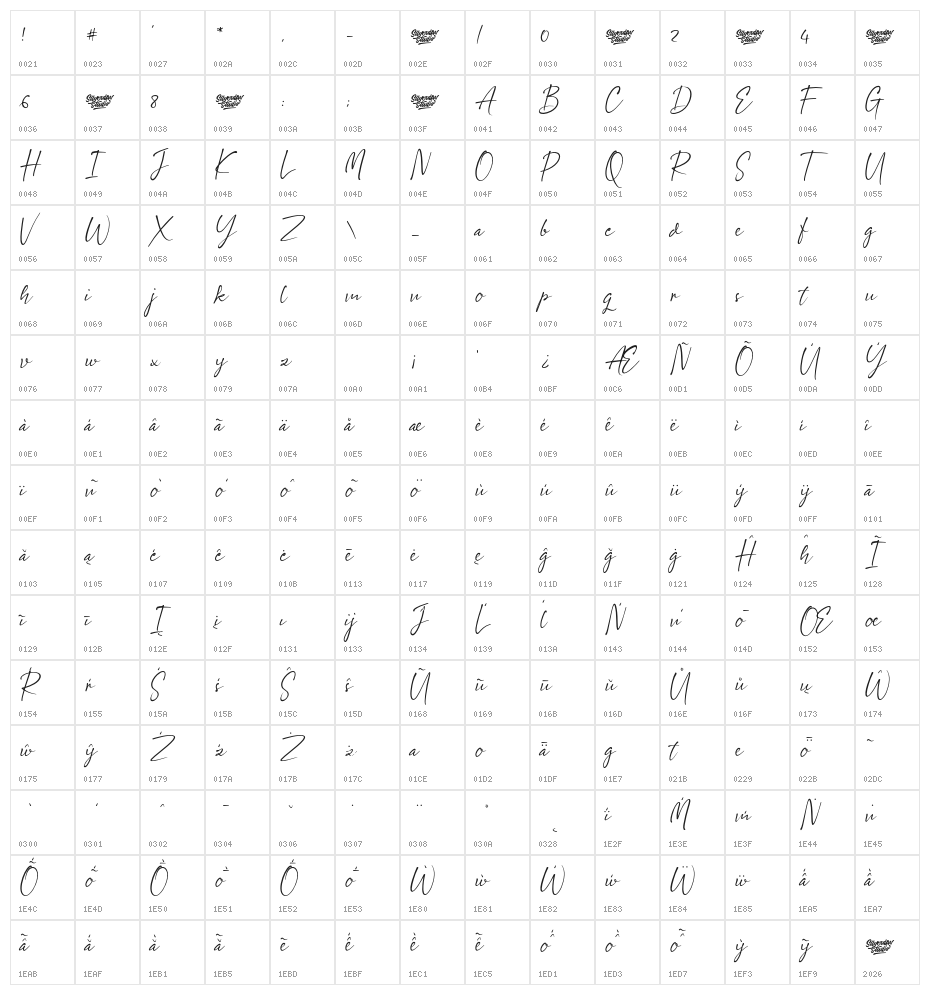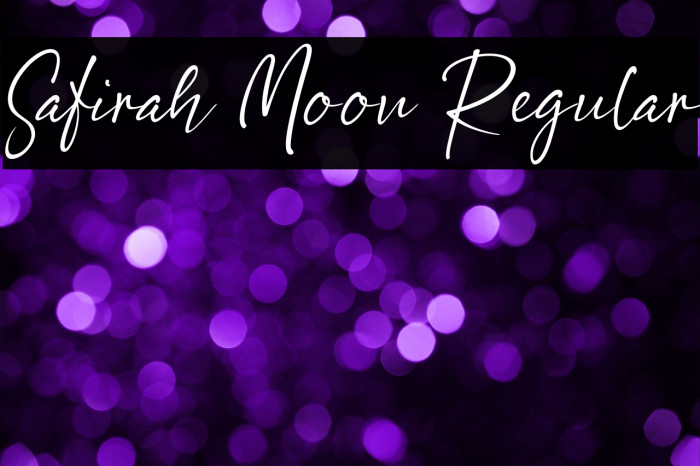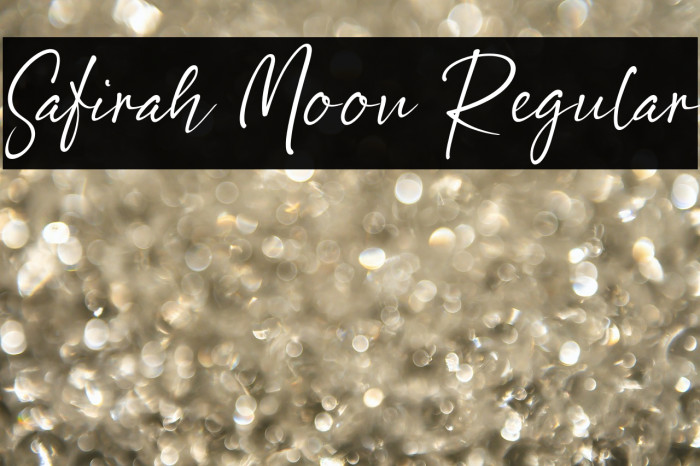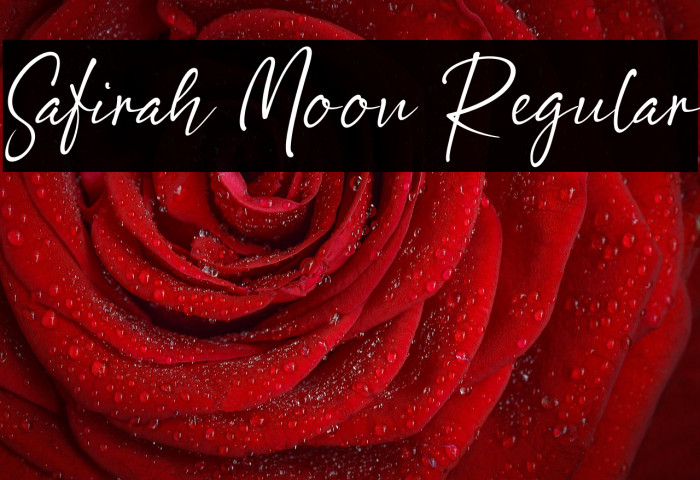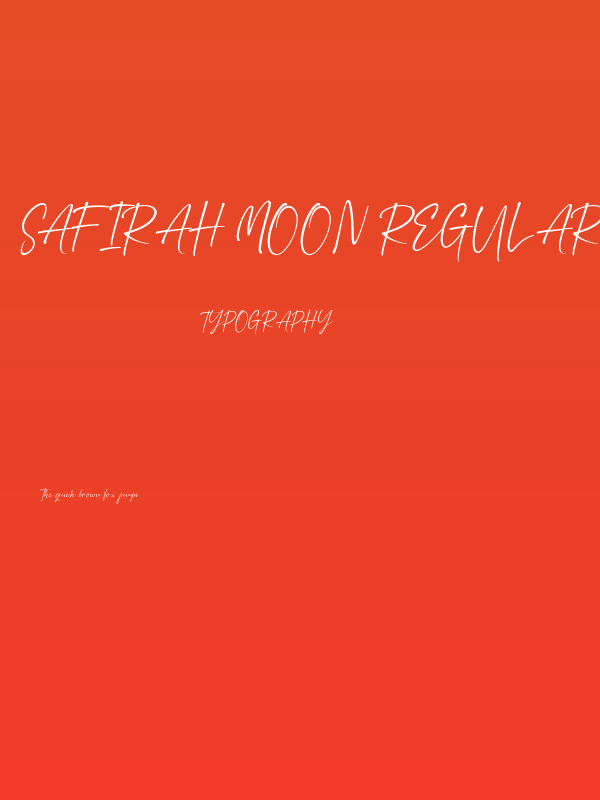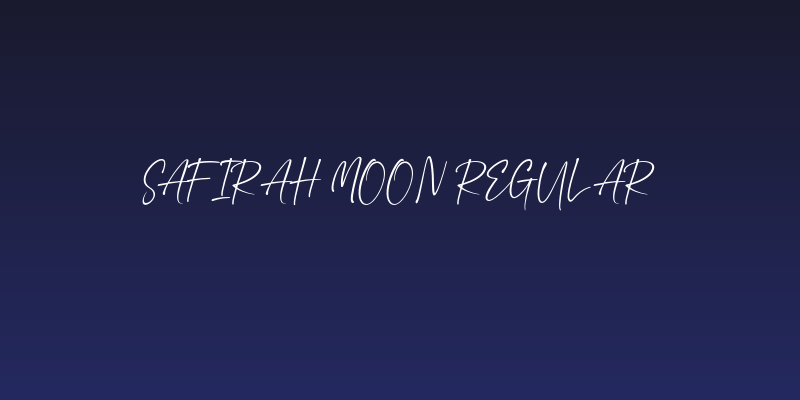
Safirah Moon Regular Font
Safirah Moon Regular Description
A flowing, elegant script font with a handwritten style, featuring smooth curves and a natural, organic feel.
| Use Case | Logos, headlines, decorative text. |
| Proposed Projects | Invitations, greeting cards, branding. |